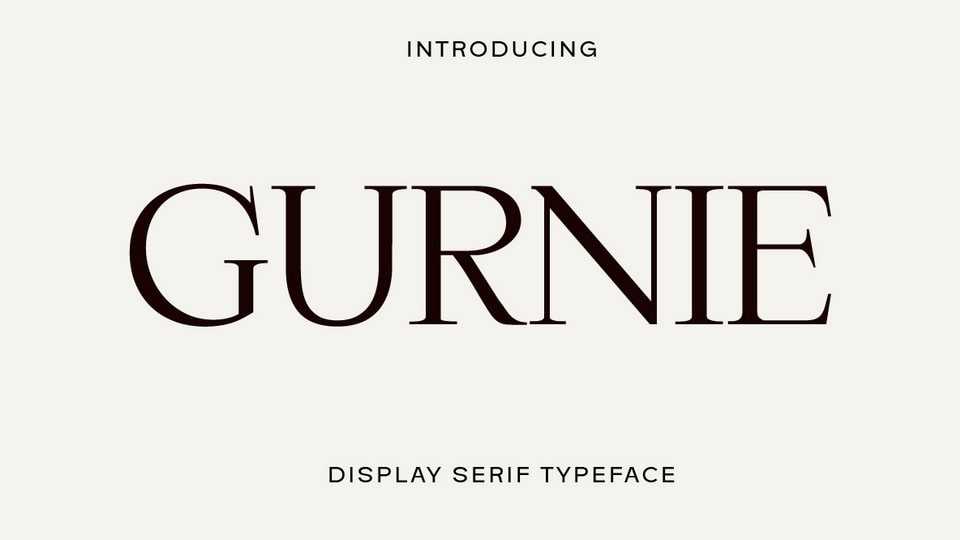
Download Gurnie Serif font, a classic typeface with the characteristics of a proportional and elegant serif. Great for calling headlines, newspapers, magazines, and other design projects.
Designer: Yukita Creative